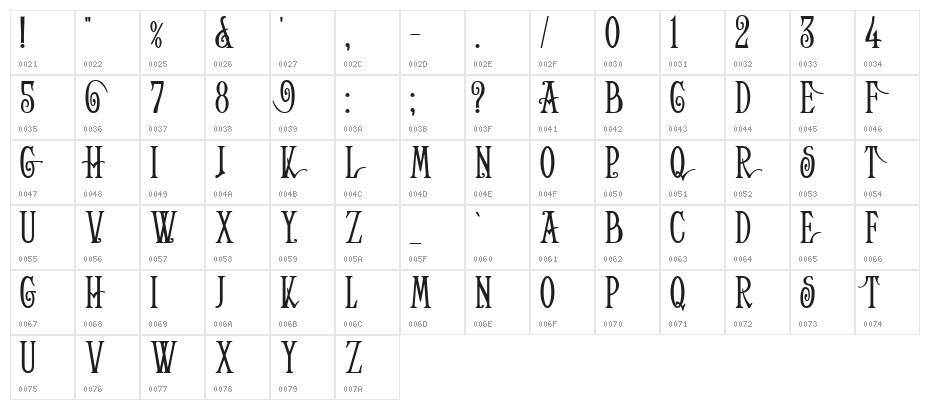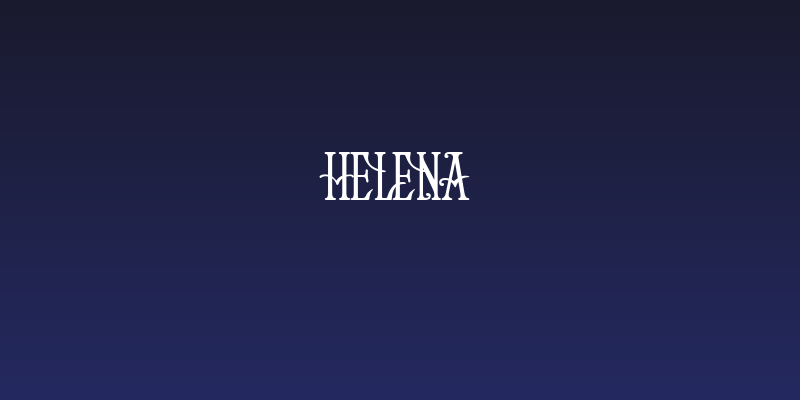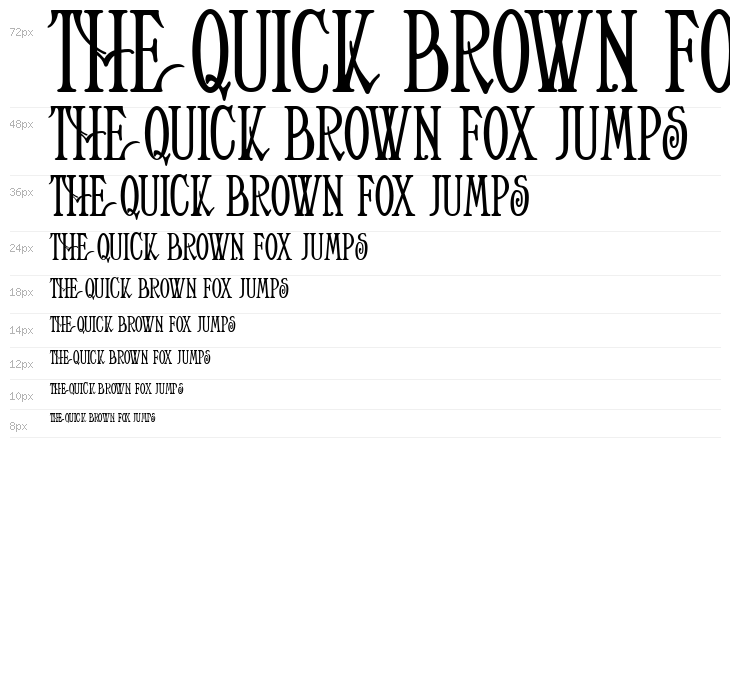
Helena Font
Helena Description
This font features a unique and decorative style with swirling embellishments on certain characters, giving it an artistic flair. The uppercase letters are tall and slender, with some characters incorporating elegant curls and loops, particularly noticeable in letters like 'Q' and 'R'. The lowercase letters maintain a consistent height and style, complementing the uppercase with similar decorative elements. Numbers are bold and distinct, with some digits like '3' and '5' featuring the same swirling design. The special characters are equally ornate, adding a touch of sophistication to punctuation marks. Overall, this font combines a classic serif structure with decorative elements, making it stand out for creative and artistic projects.
| Use Case | Headlines, Logos, Artistic projects |
| Proposed Projects | Ideal for invitations, artistic posters, branding, and any project requiring a touch of elegance and creativity. |